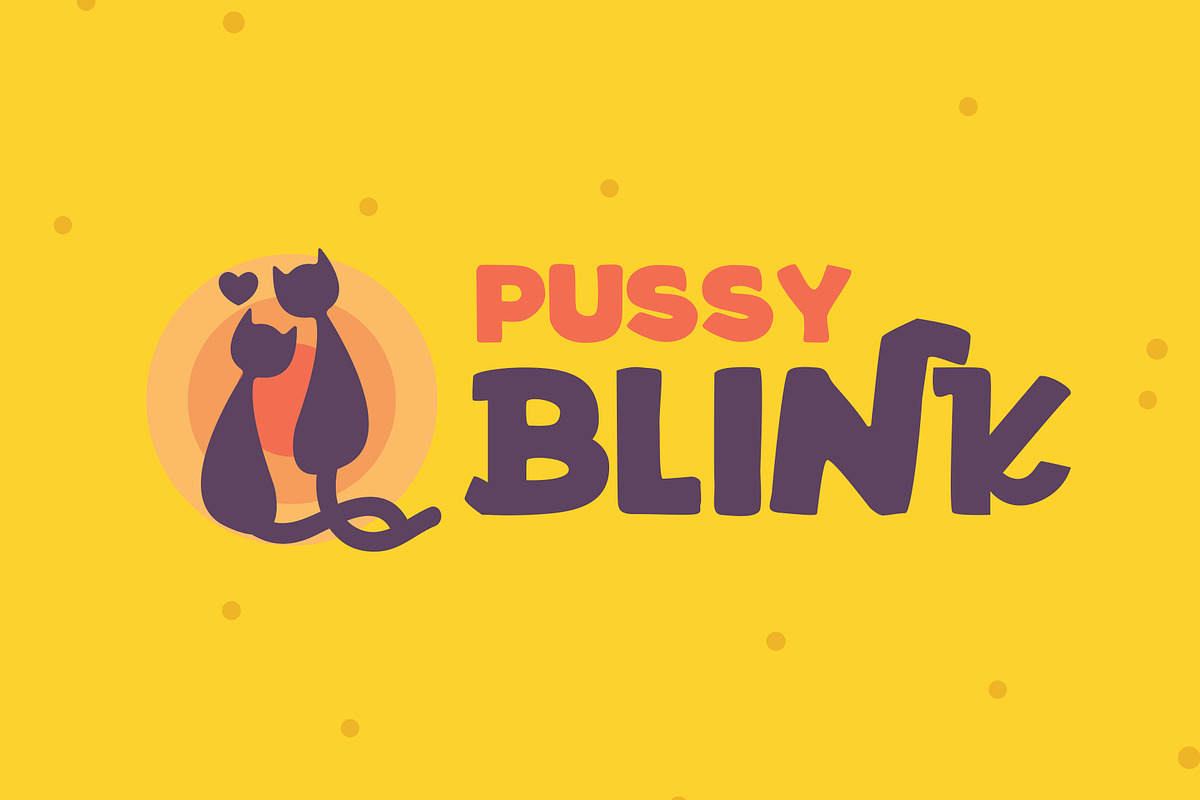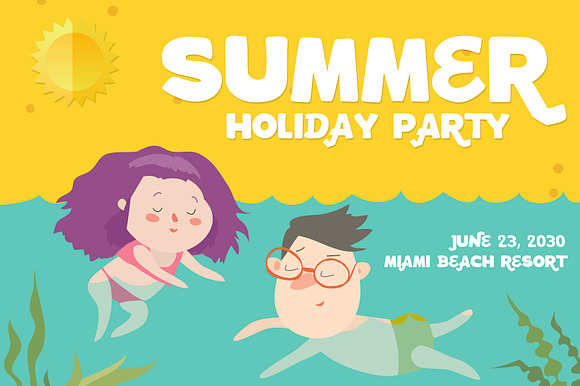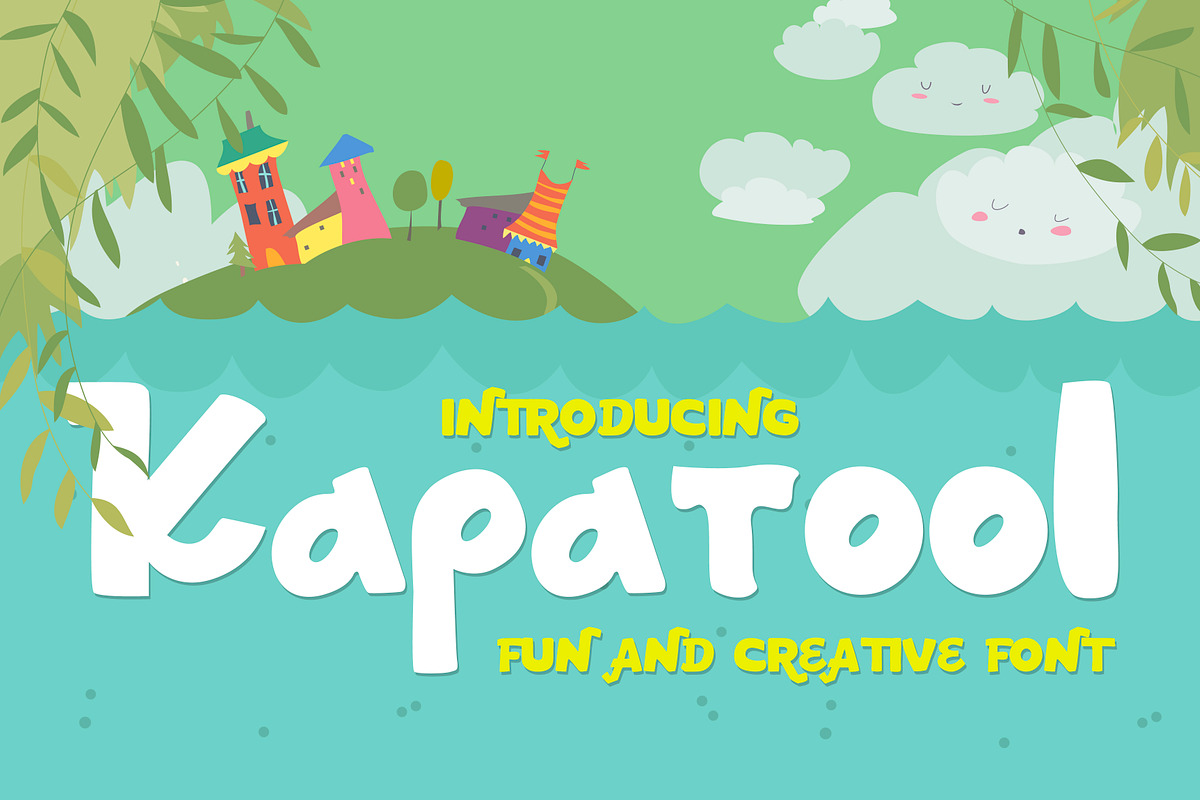
Kapatool Summer Font
Introducing Kapatool fun display font... the best look for any creative playful lettering. The type comes with different approach and bring happiness in your visual concept. It's available in Caps and lowercase include numeric and punctuation.
- The type comes with different approach and bring happiness in your visual concept.
- It's available in Caps and lowercase include numeric and punctuation.
Why Kapatool Summer Font is worth a look
Kapatool Summer Font by Artdorable fits naturally into Branding, posters, packaging, typography.